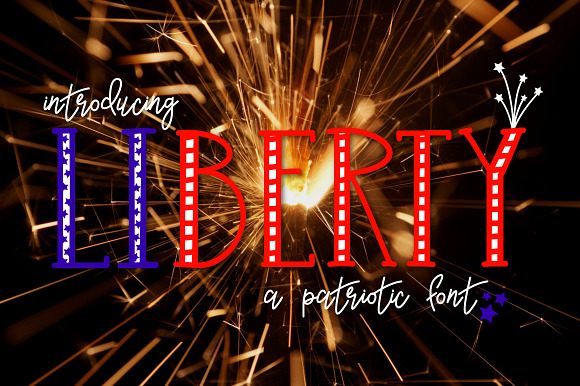
Liberty A Patriotic Font
This font is perfect to add to any project.
Why Liberty A Patriotic Font is worth a look
Liberty A Patriotic Font by Kitaleigh fits naturally into Branding, posters, packaging, typography.